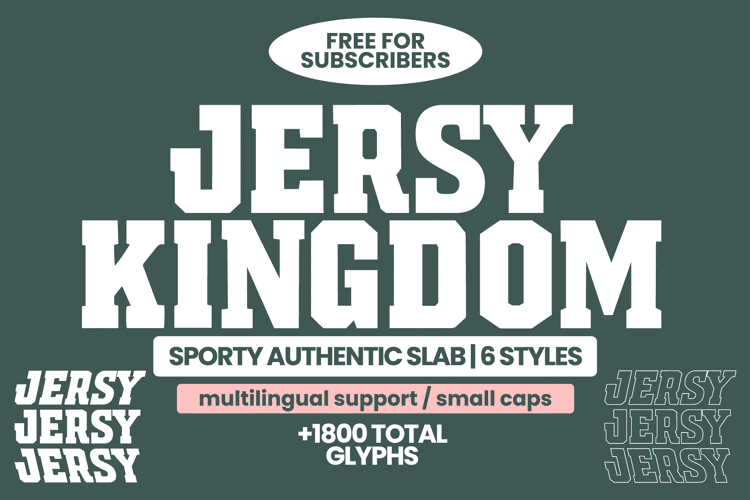
Jersey Kingdom Font
🎨 Font Name: Jersey Kingdom by Minimalist Art Studio
🎨 Font Description: Jersy Kingdom is a sporty slab serif with 1800+ glyphs and six styles, built for bold branding, team spirit, and authentic display design.
✔ Complete Latin set + multilingual diacritics
✔ Alternates, stylistic sets & ligatures
✔ Numbers, small caps, and extended punctuation
✔ Bonus italics and family styles